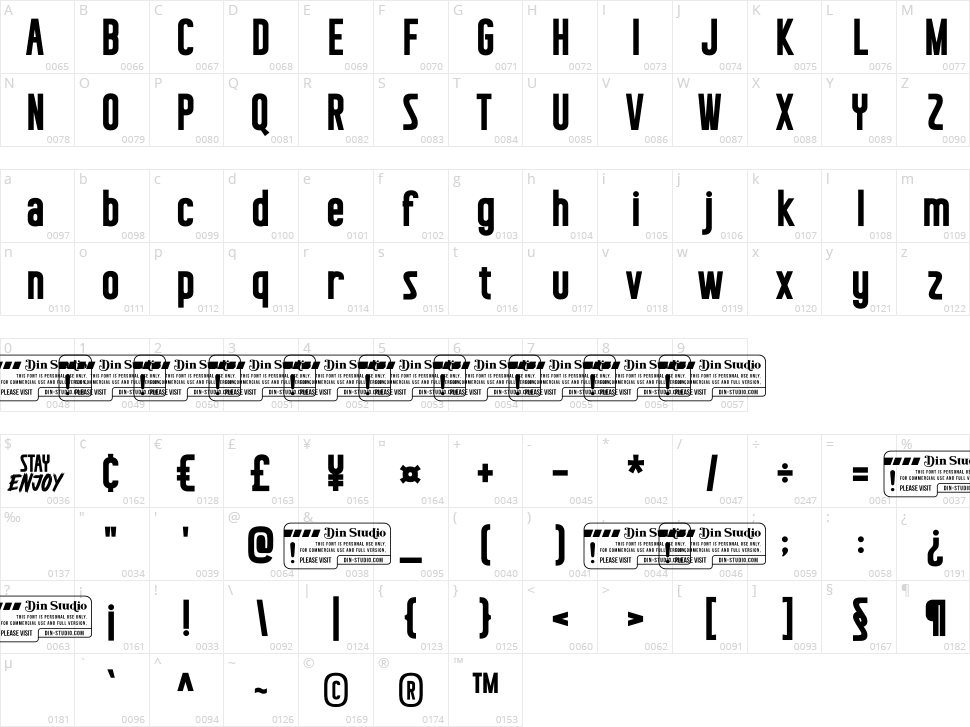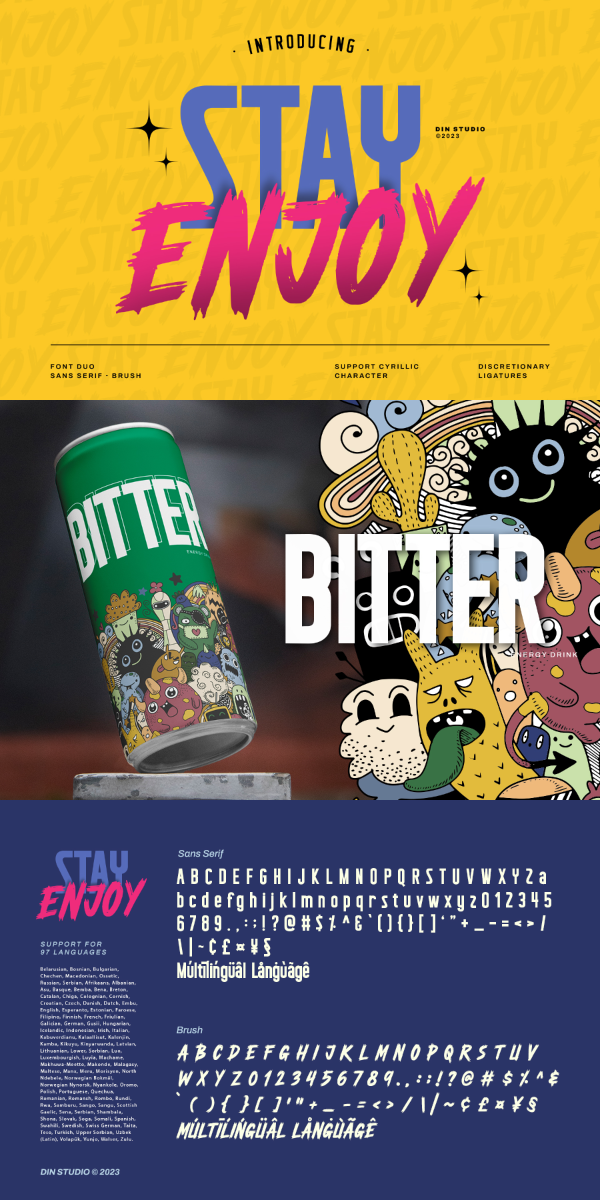
Stay Enjoy is a captivating sans serif and bruh font duo. The sans serif font in the Stay Enjoy is a testament to timeless elegance and sophistication. Crafted with precision, its letters embody clean lines and a modern aesthetic. In striking contrast to the sans serif counterpart, the brush font of the Stay Enjoy bursts forth with creativity and energy.